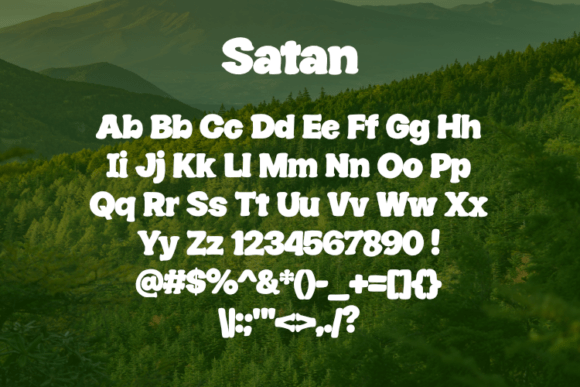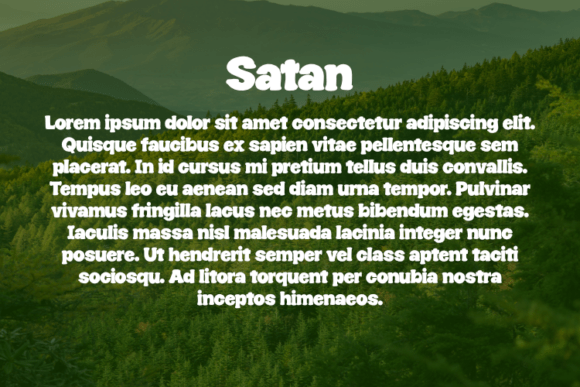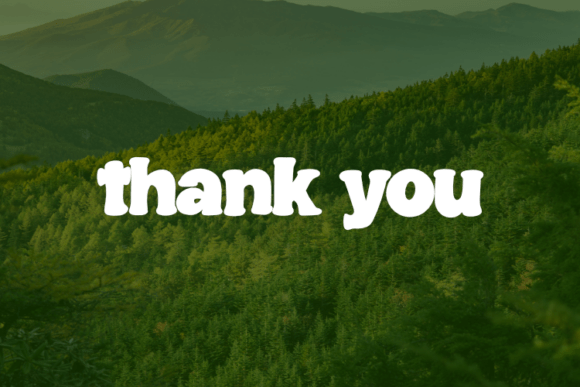
Introduction to Satan Font Font
Fonts play a crucial role in design, and the Satan Font font is a typeface that brings both character and versatility to any project. Whether you’re working on a branding project, a website, or a print design, the Satan Font font offers a unique style that can elevate your work.
Introduction Satan is a modern and elegant typeface designed for flexibility and excellent readability across a wide range of media.
Key Features of Satan Font Font
Why Choose Satan Font Font?
The Satan Font font is more than just a typeface – it’s a design tool that helps you communicate your message with style and clarity. Its unique character set and versatile design make it suitable for a wide range of applications, from elegant invitations to bold headlines.
With its carefully crafted letterforms and balanced proportions, the Satan Font font ensures readability and visual appeal across all mediums.
What makes Satan Font font special?
The Satan Font font stands out with its unique design, exceptional readability, and versatility across various design applications.